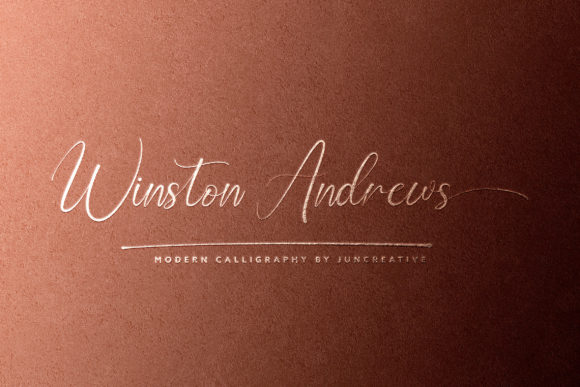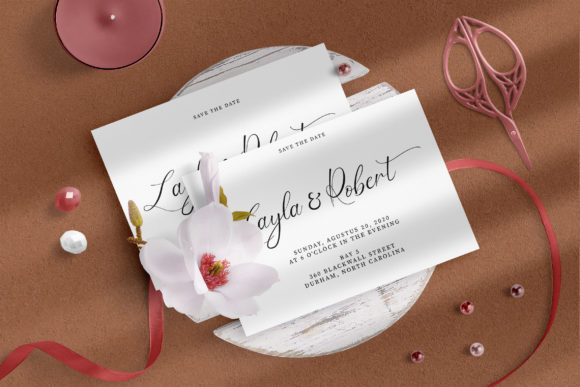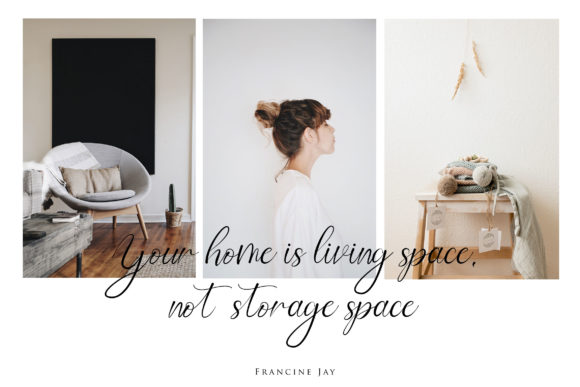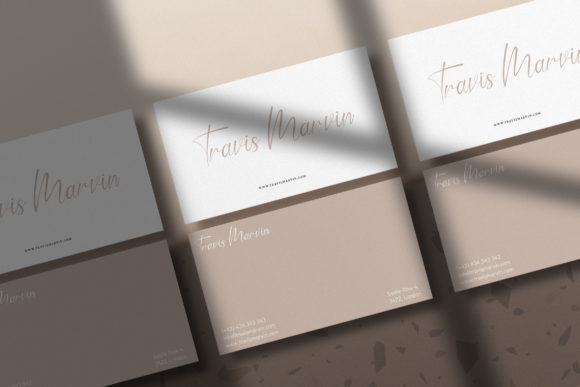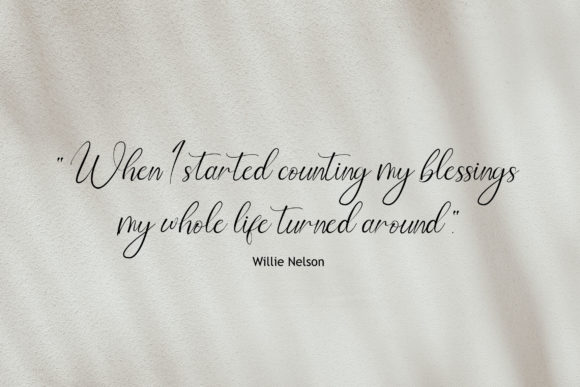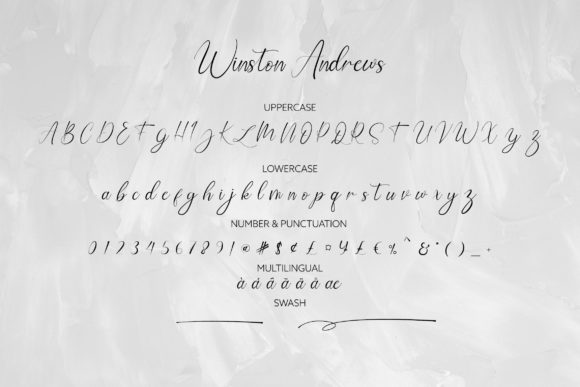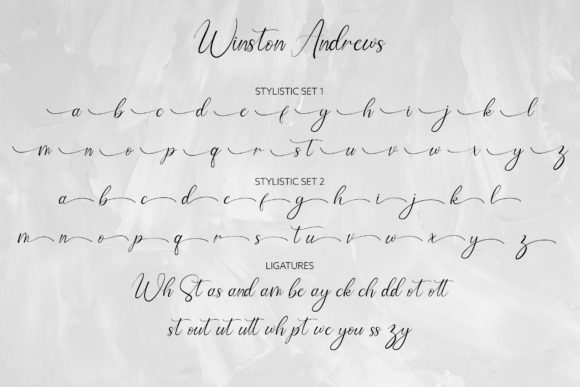
Winston Andrews Font
About Winston Andrews Font
Winston Andrews is a stunning script font with a modern feel! It will take any design project into a true standout!